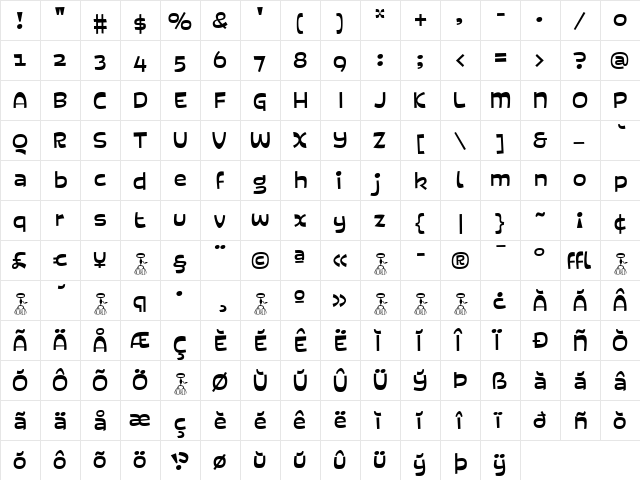
Eggwhite-Lite Regular
| Designer | Cyrus Highsmith |
Design Context for Eggwhite-Lite Typeface
Eggwhite-Lite offers clean, dependable letterforms without strong stylistic allegiance, making it a practical choice for designers who need flexibility.
Pro Tip: Use Eggwhite-Lite in both headline and body roles to test its range before committing to a single application.